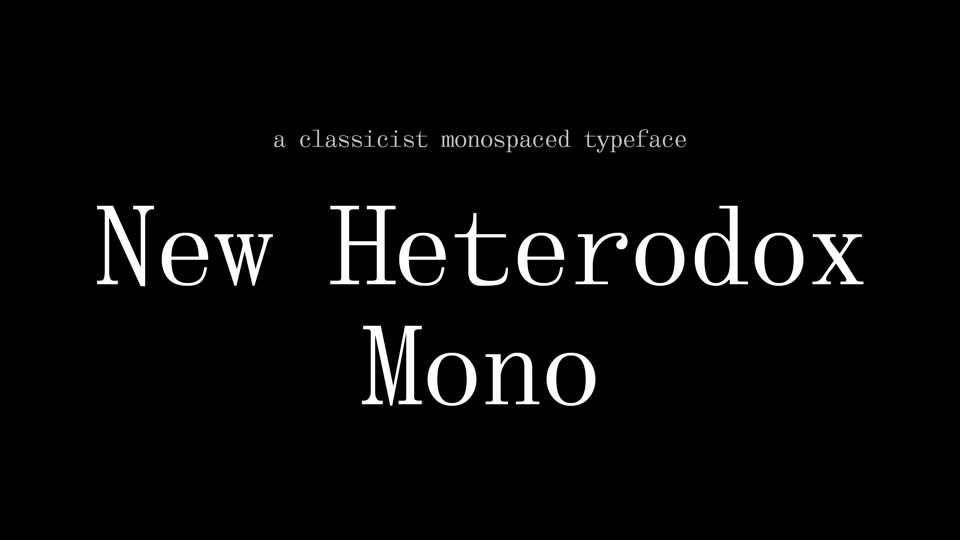
Download New Heterodox Mono font, a classicist monospaced typeface based on Alexey Kryukov’s Old Standard TT. The design has been slightly modified to adapt to monospace – especially the proportion of the letters, in this monospaced version.
Designer: Hao Chi Kiang